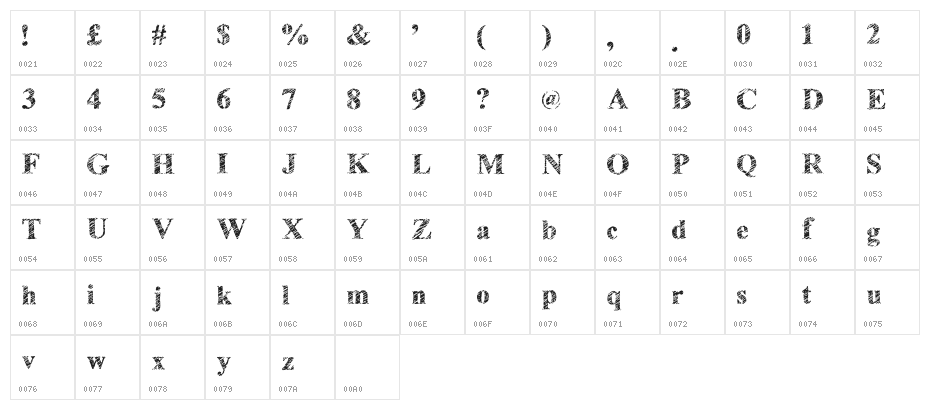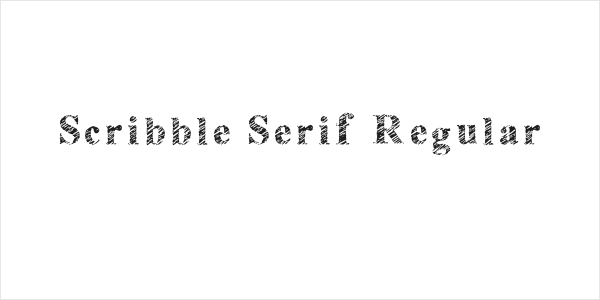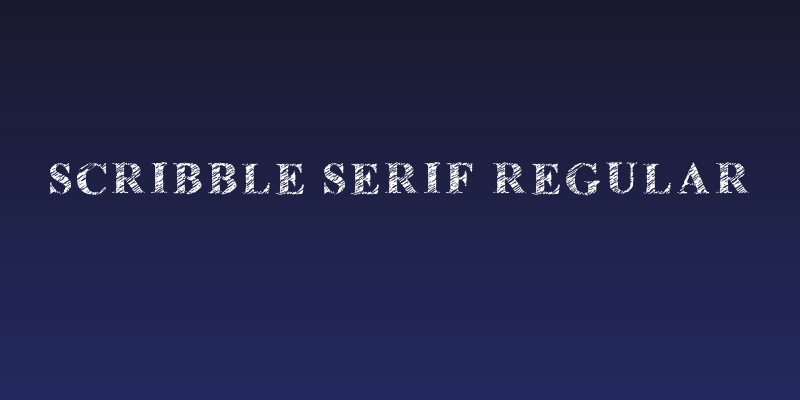
Scribble Serif Regular Font
Scribble Serif Regular Description
This font features a unique scribbled texture that gives it a hand-drawn appearance, while maintaining a classic serif structure. The letters are bold and have a rough, sketch-like quality, which adds a playful yet sophisticated touch. The uppercase and lowercase letters are well-defined, with consistent stroke widths that create a balanced look. Numbers and special characters follow the same style, ensuring uniformity across all text elements. This font's distinctive style makes it stand out, offering a creative twist on traditional serif fonts.
| Proposed Projects | Ideal for creative projects such as posters, book covers, and branding materials that require a distinctive and artistic touch. |